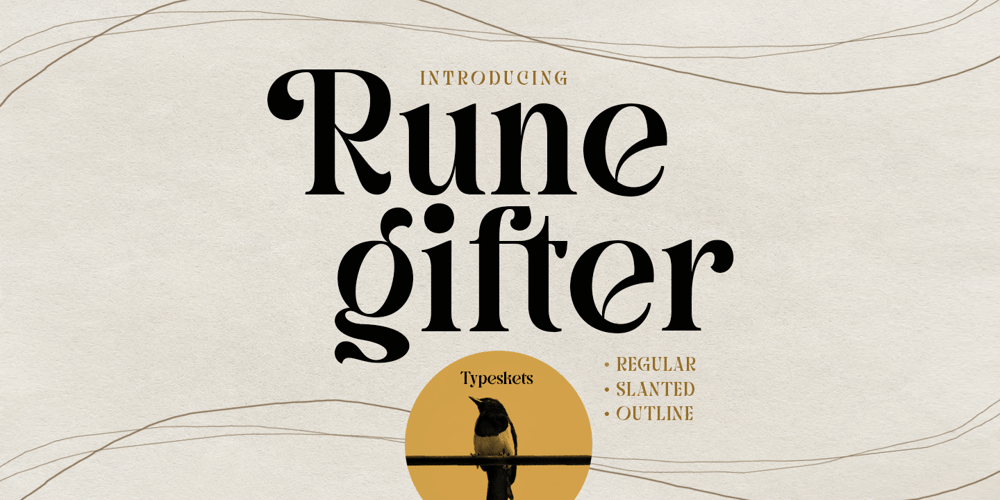
Runegifter Font Family was designed by Sahrul Hidayat and published by Typeskets. Runegifter contains 4 styles and family package options. Rune Gifter is a bold, modern and cool Stylish Display Serif font. It is defined by smooth curves and is perfect for fashion branding or editorial designs. Add it confidently to your projects, and you will love the results.